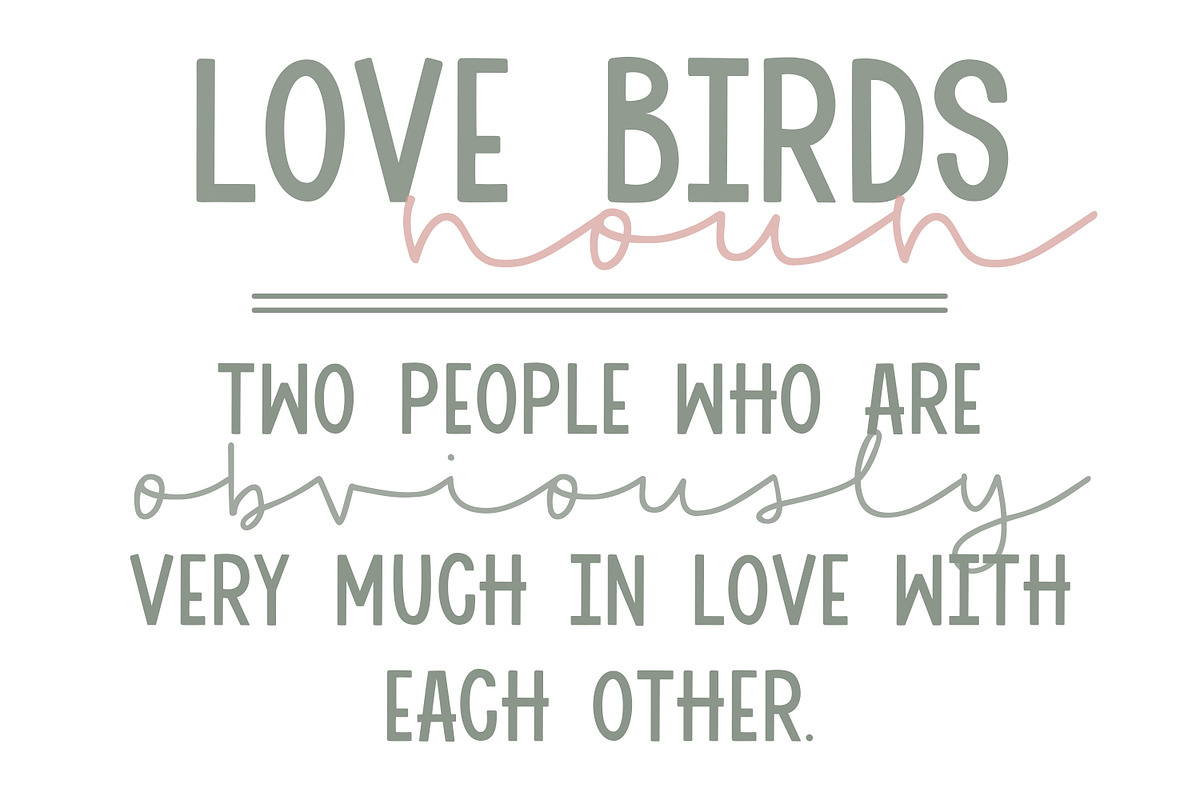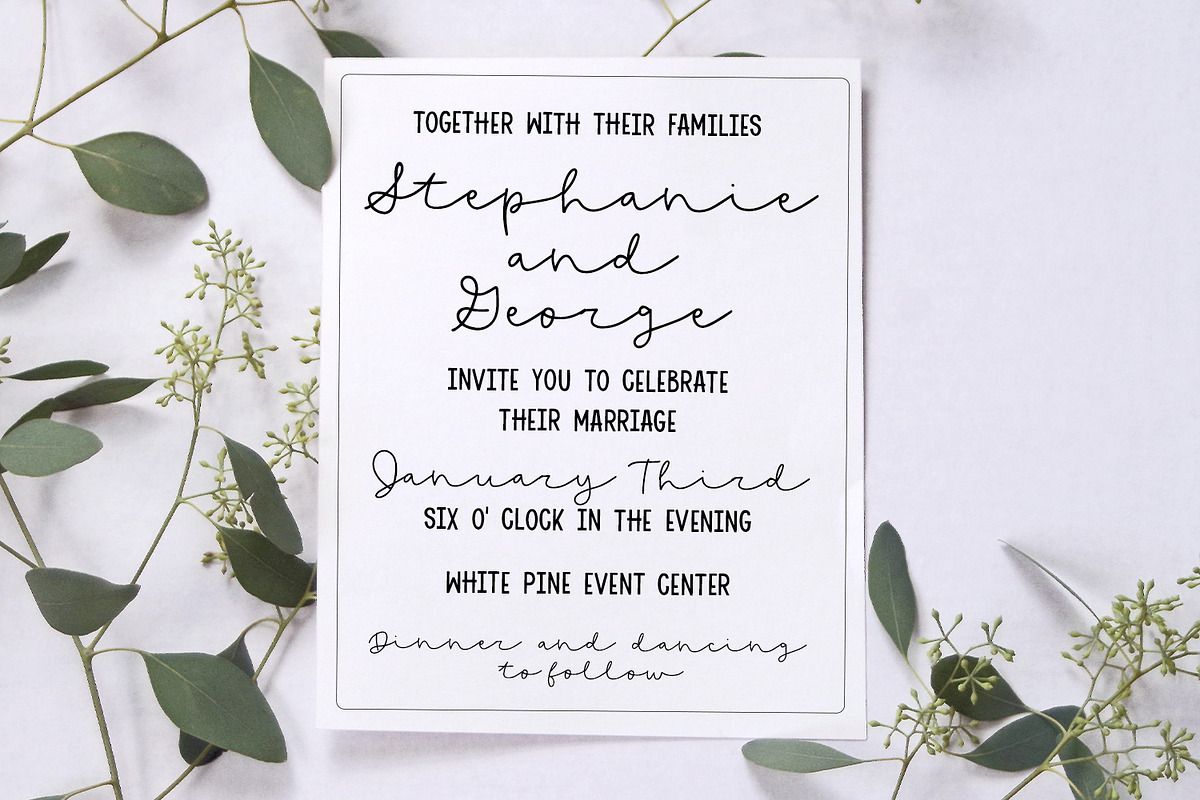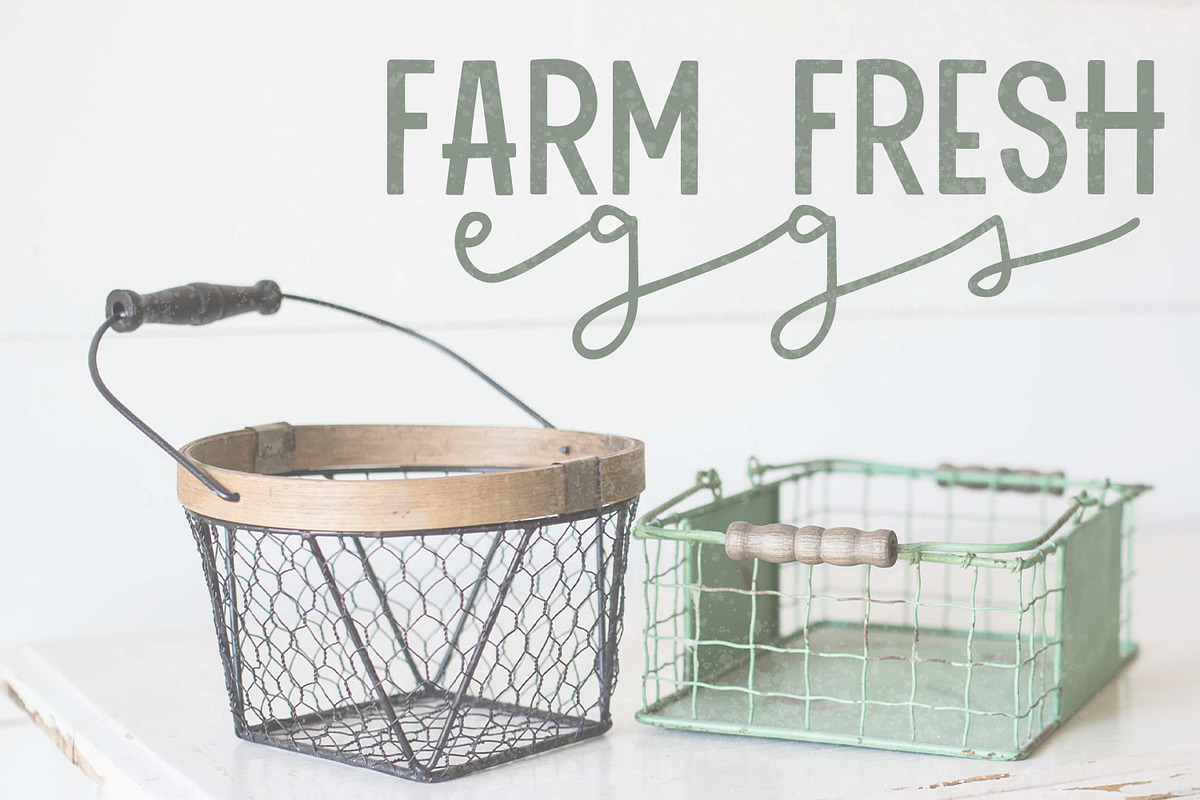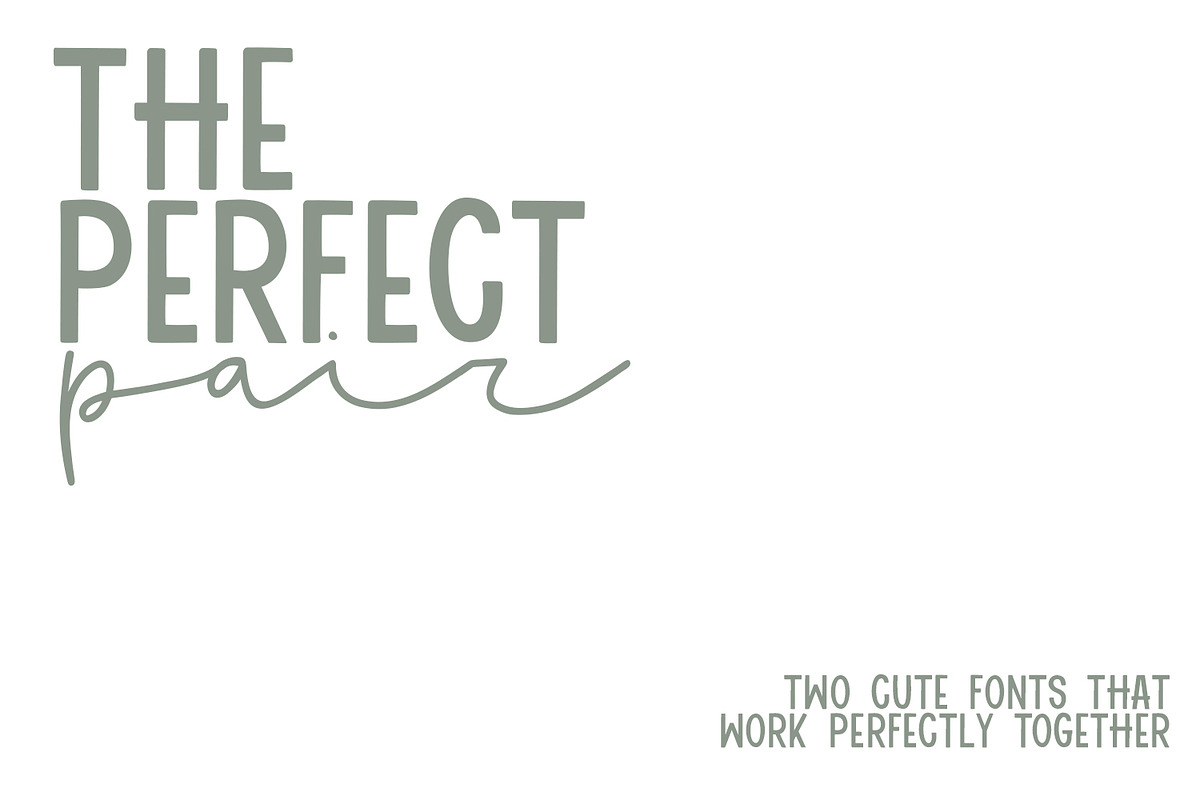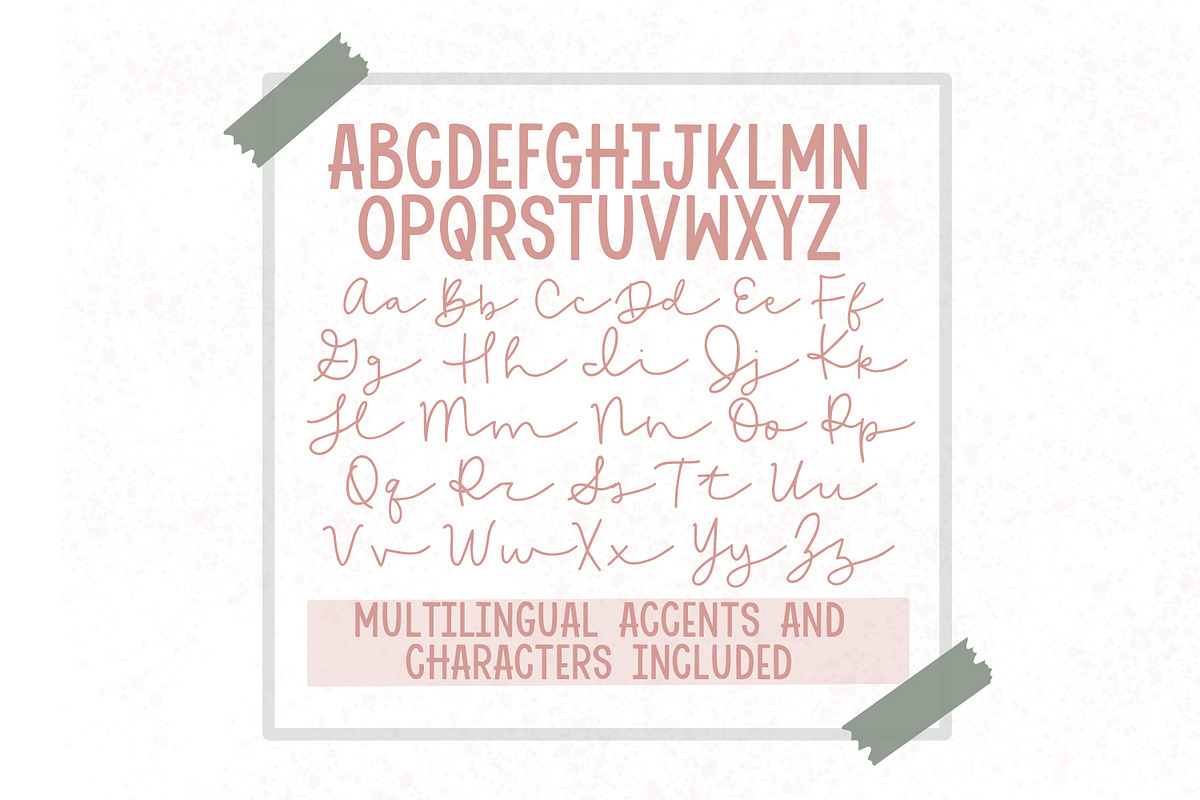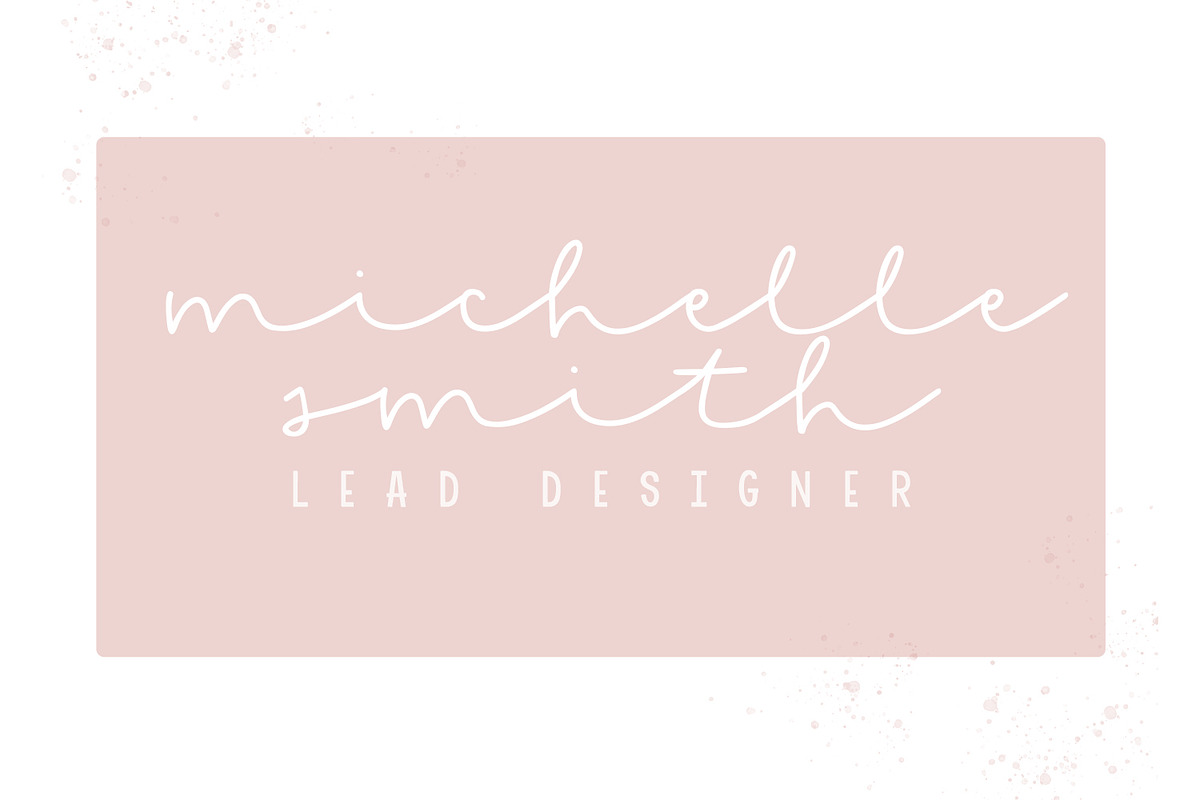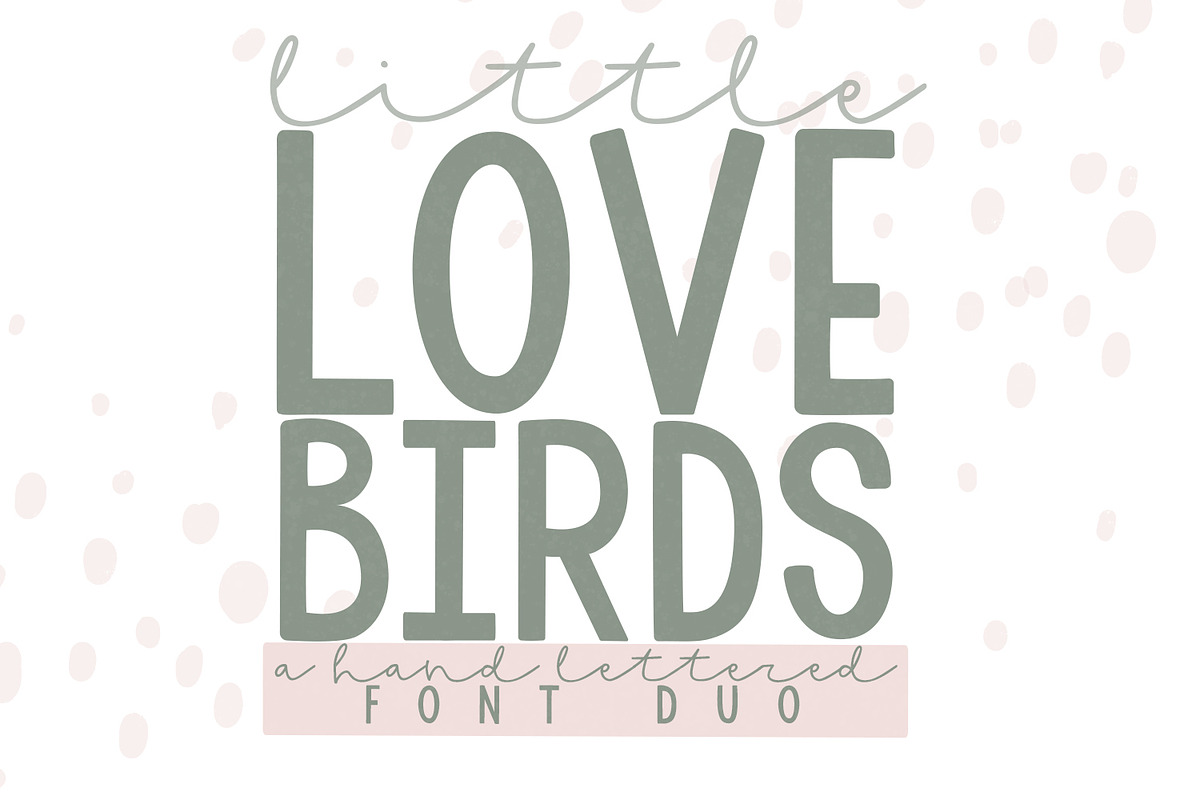
Little Love Birds Font Duo
This super cute font duo works so perfectly together! They compliment each other well and can be used together for lots of design purposes. A two in one font file, so convenient!
This font is hand lettered! Use this fun & cute font for all of your creative needs! Making SVGs, wedding invitations, graphic design projects, shirts, wood signs, cards, social media, stickers, blog posts, and much more! This is a smooth font - perfect for cutting machines like Cricut and Silhouette!